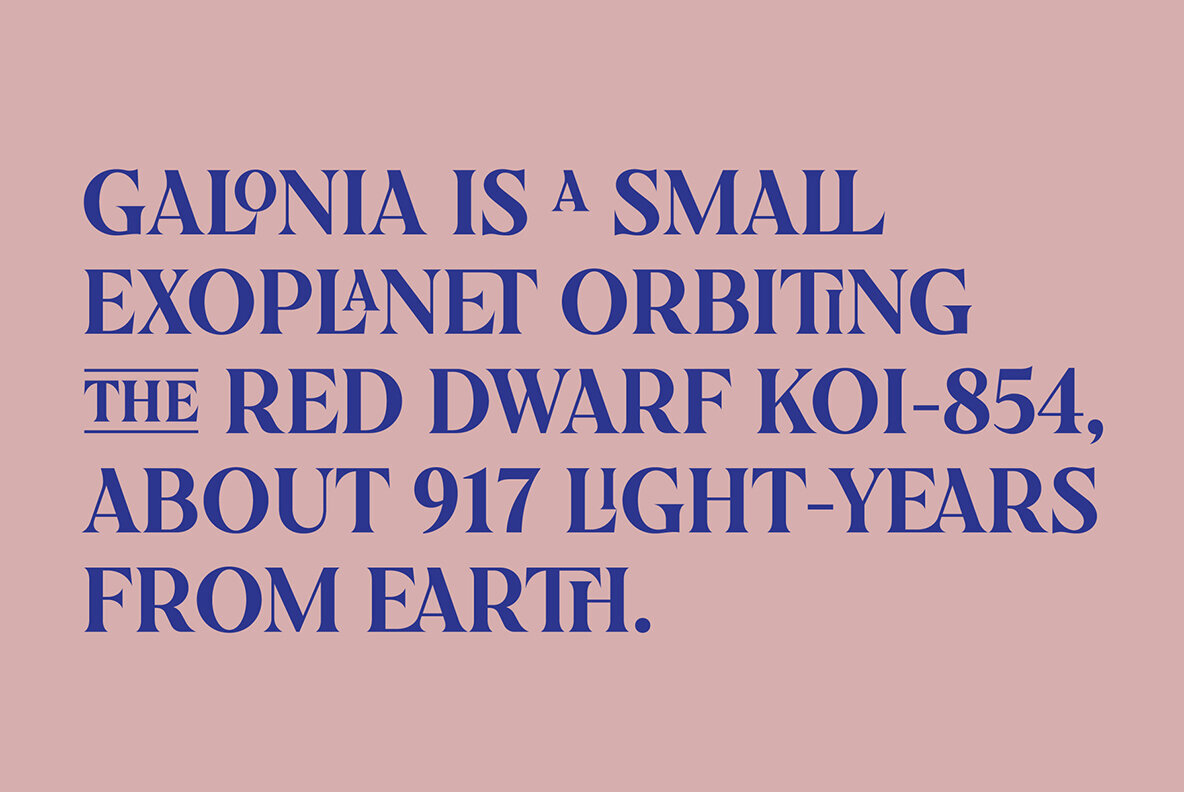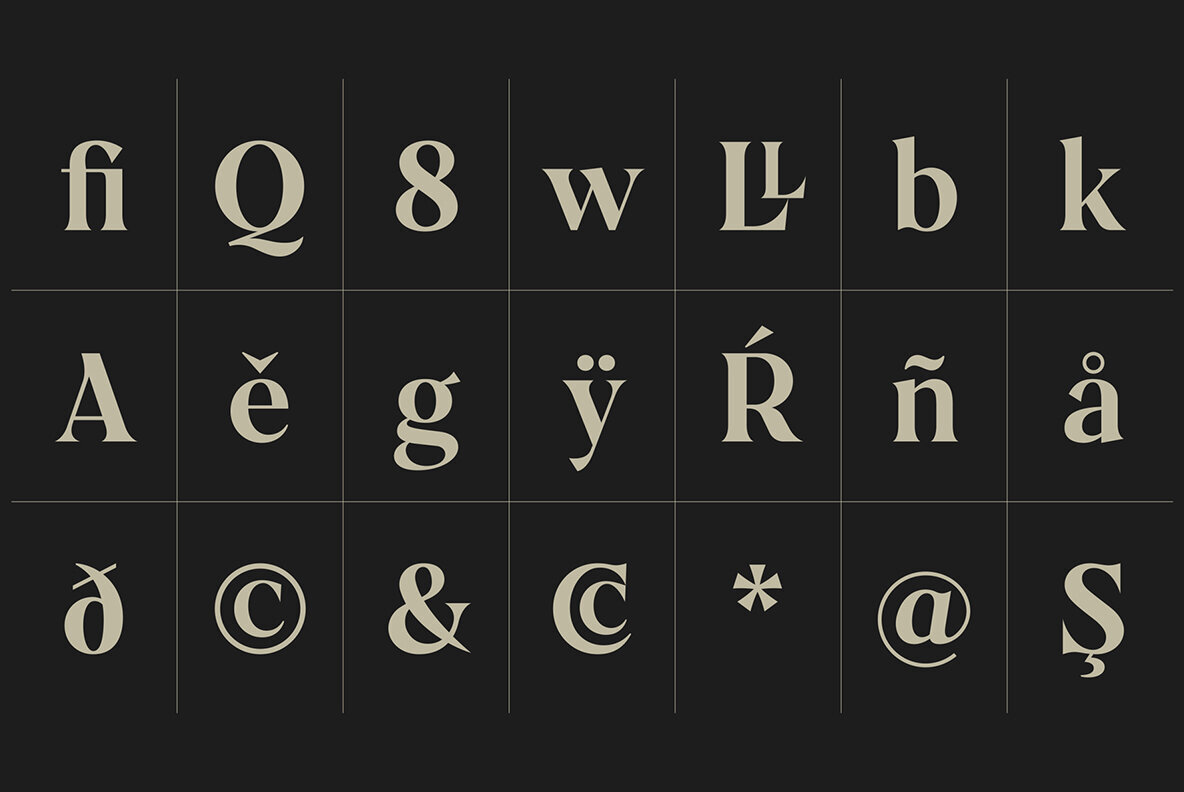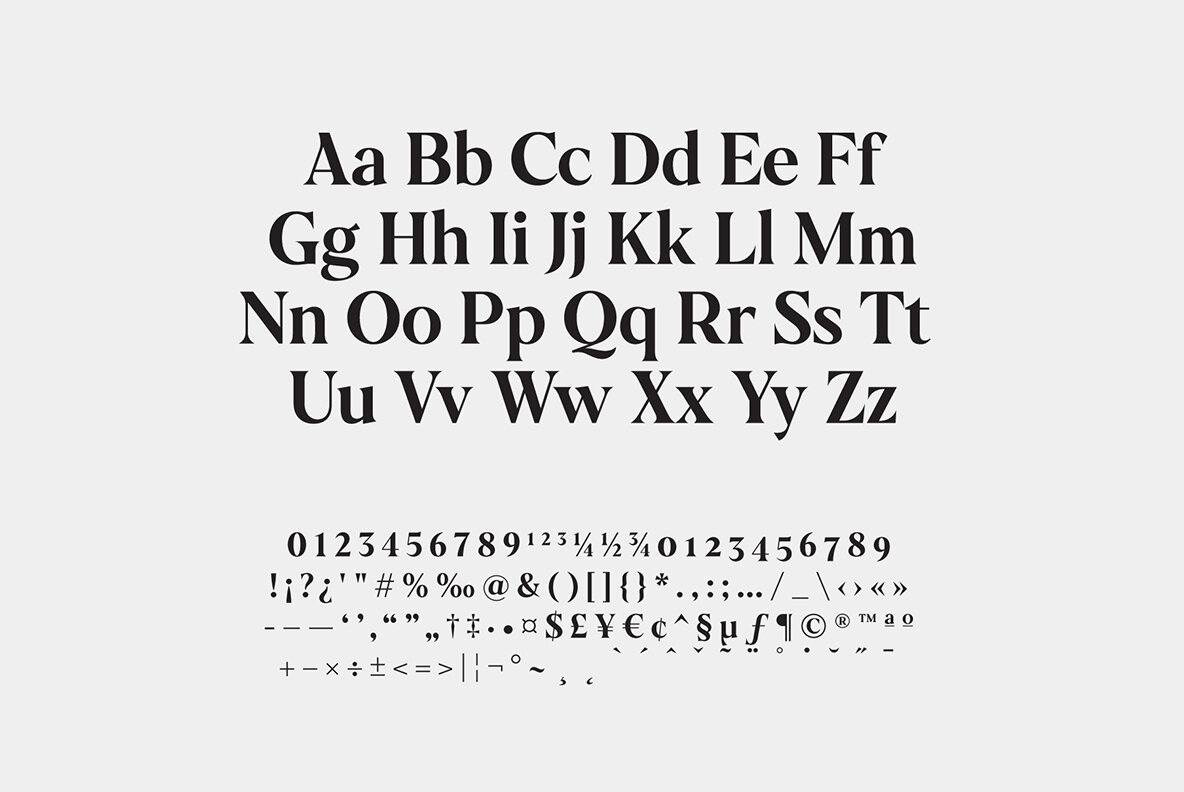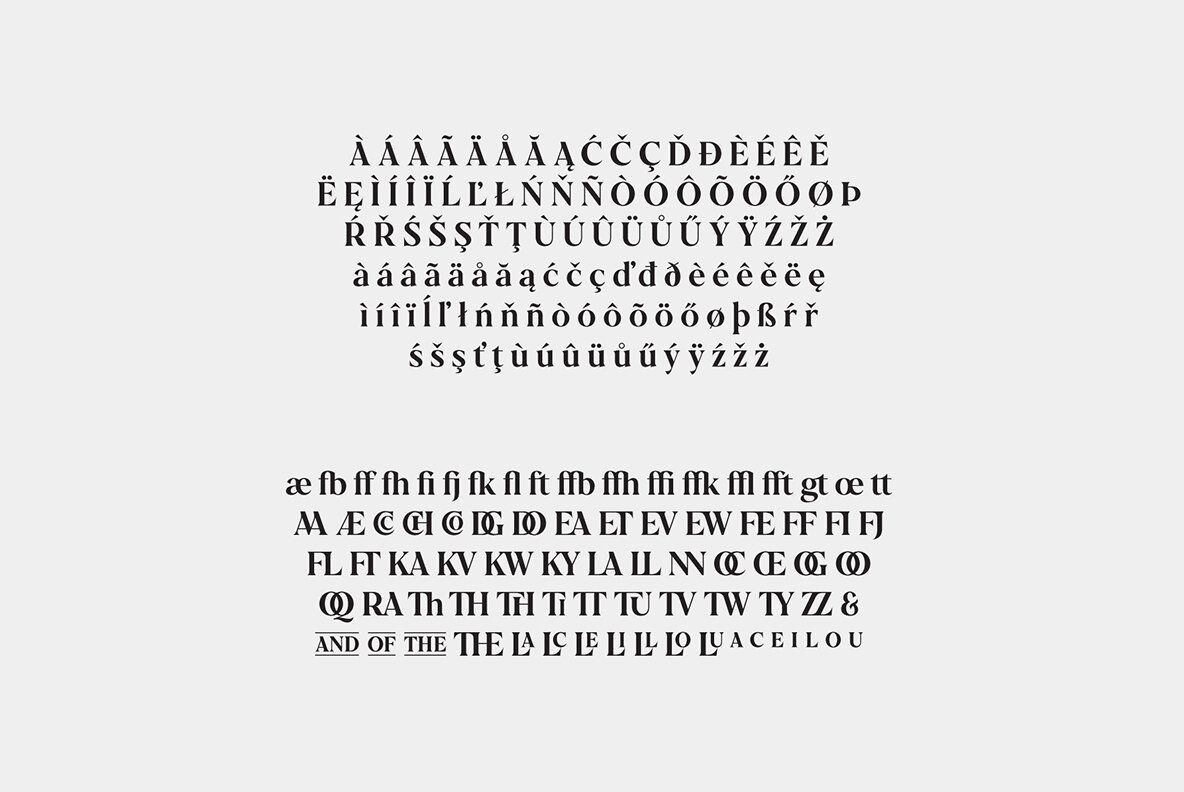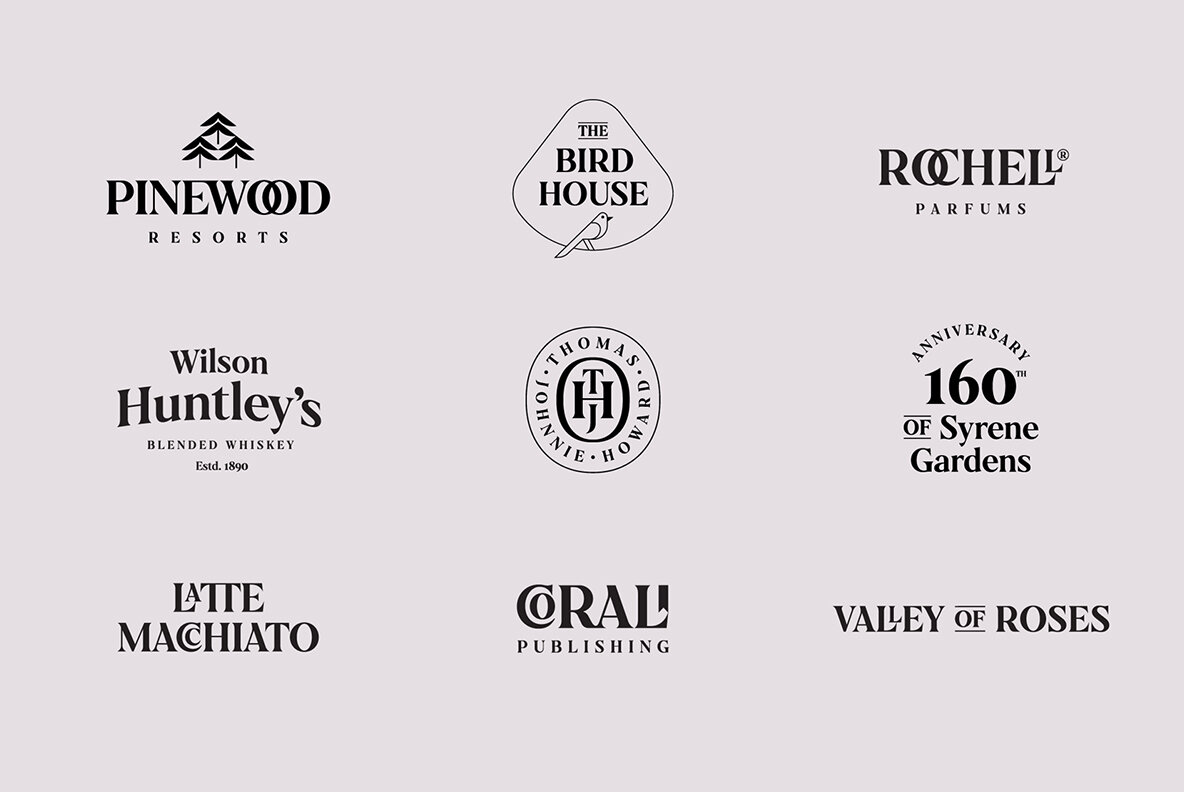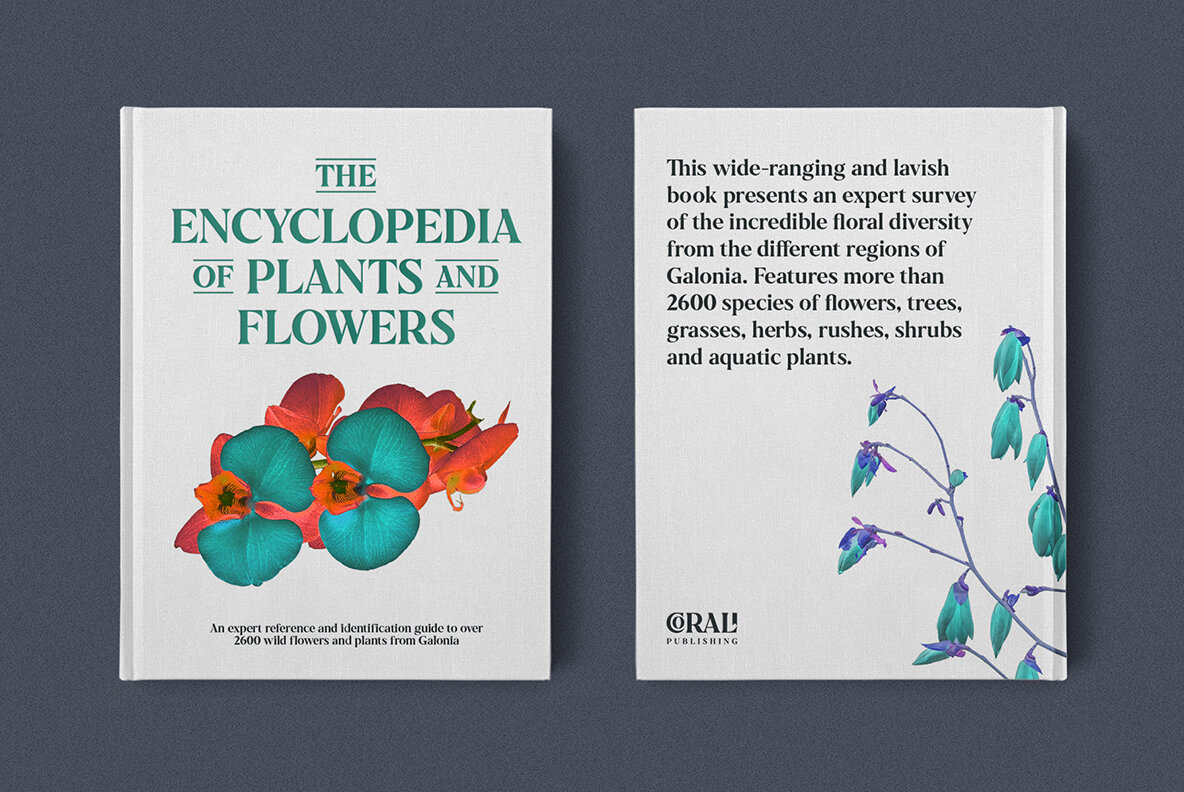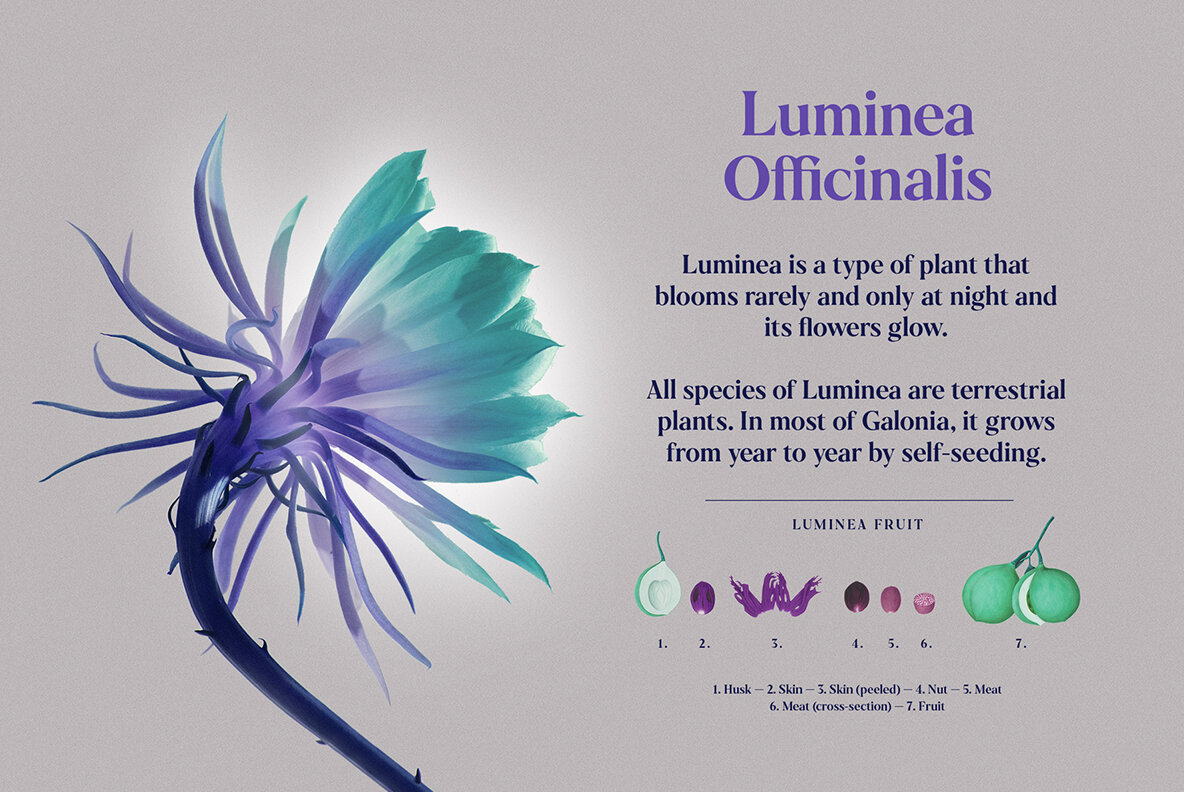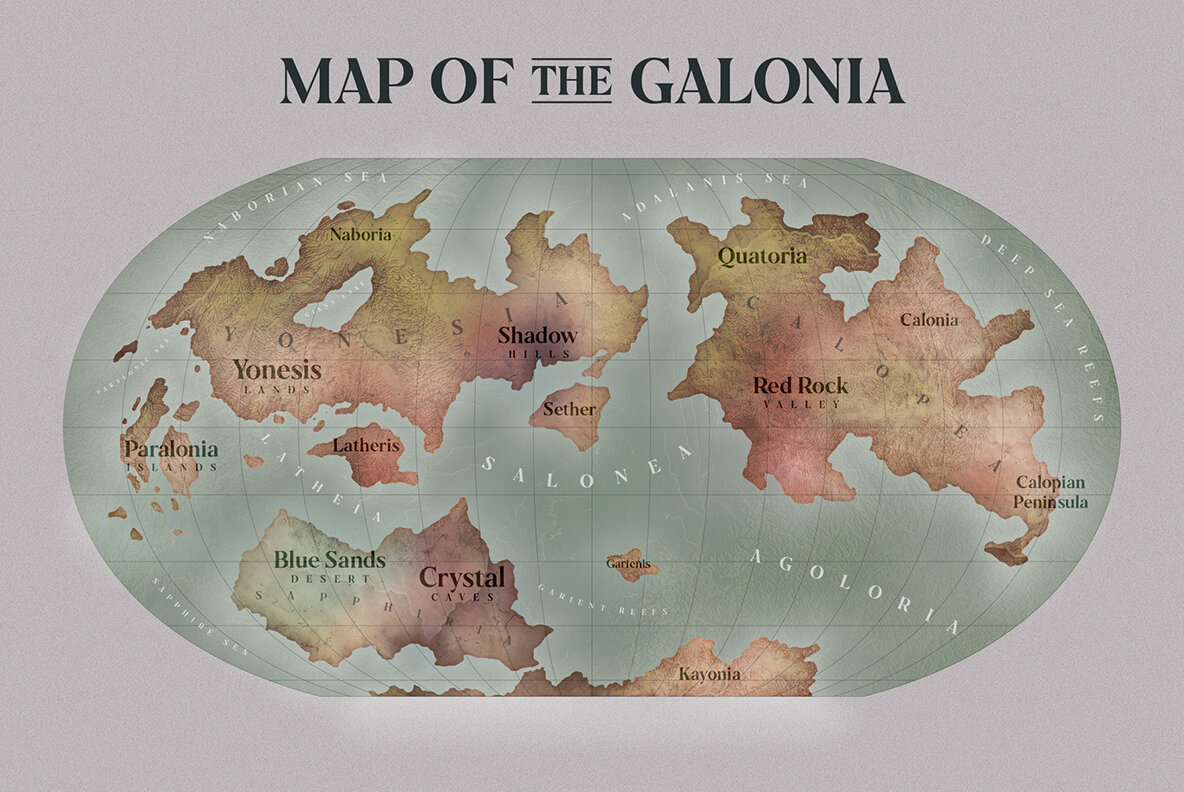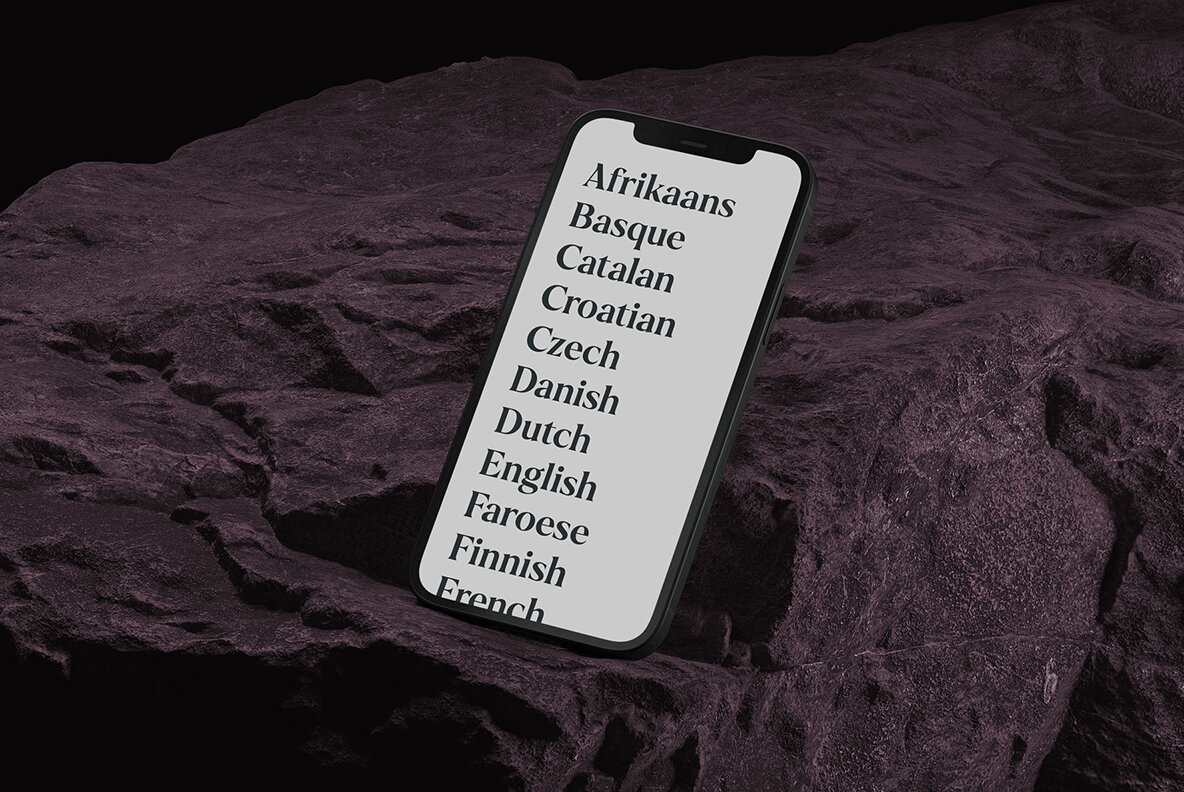
Galonia Font
Galonia
Introducing Galonia, an elegant display typeface featuring flared serifs that bring a touch of sophistication to your designs. With its high-contrast strokes and harmonious, classical appearance, Galonia is the perfect choice for projects that require a refined and timeless touch.
Ideal for a variety of applications, Galonia is well-suited for logos, headlines, packaging, invitations, and more. The font includes ligatures, special alternative glyphs, old-style figures, and case-sensitive glyphs, providing ample options for customization and versatility.